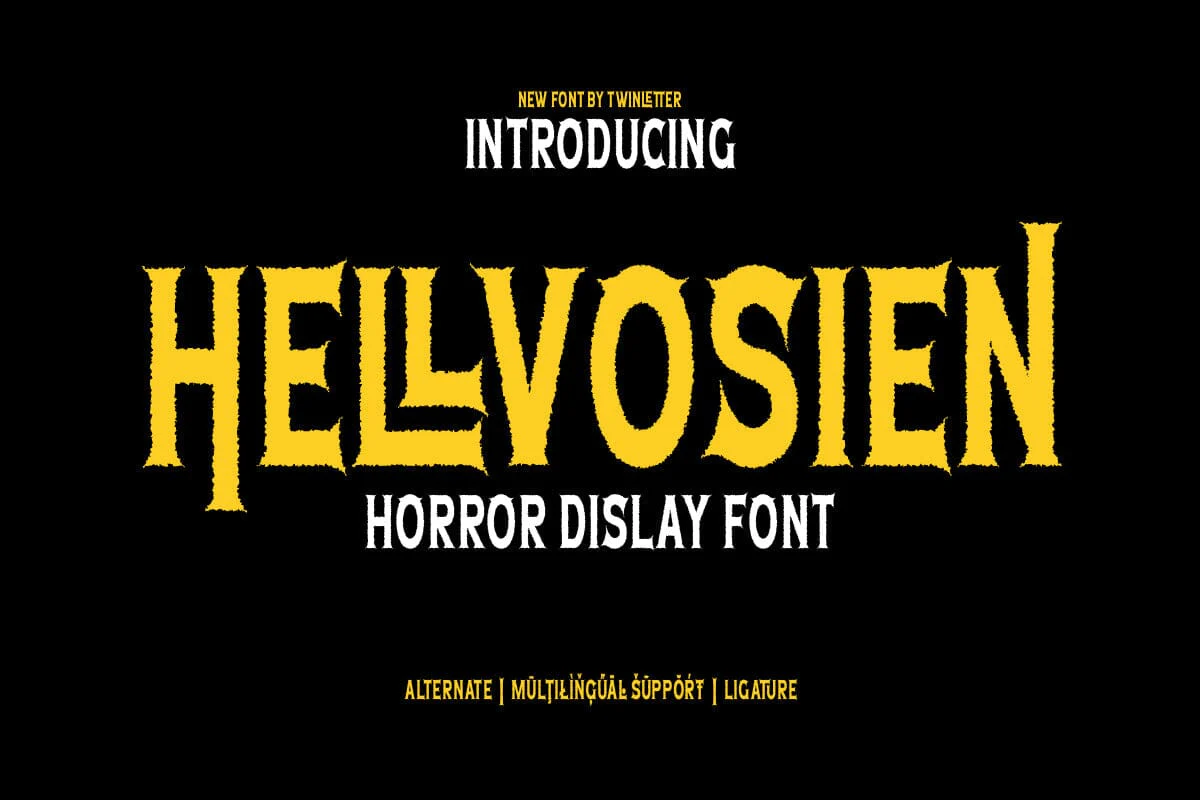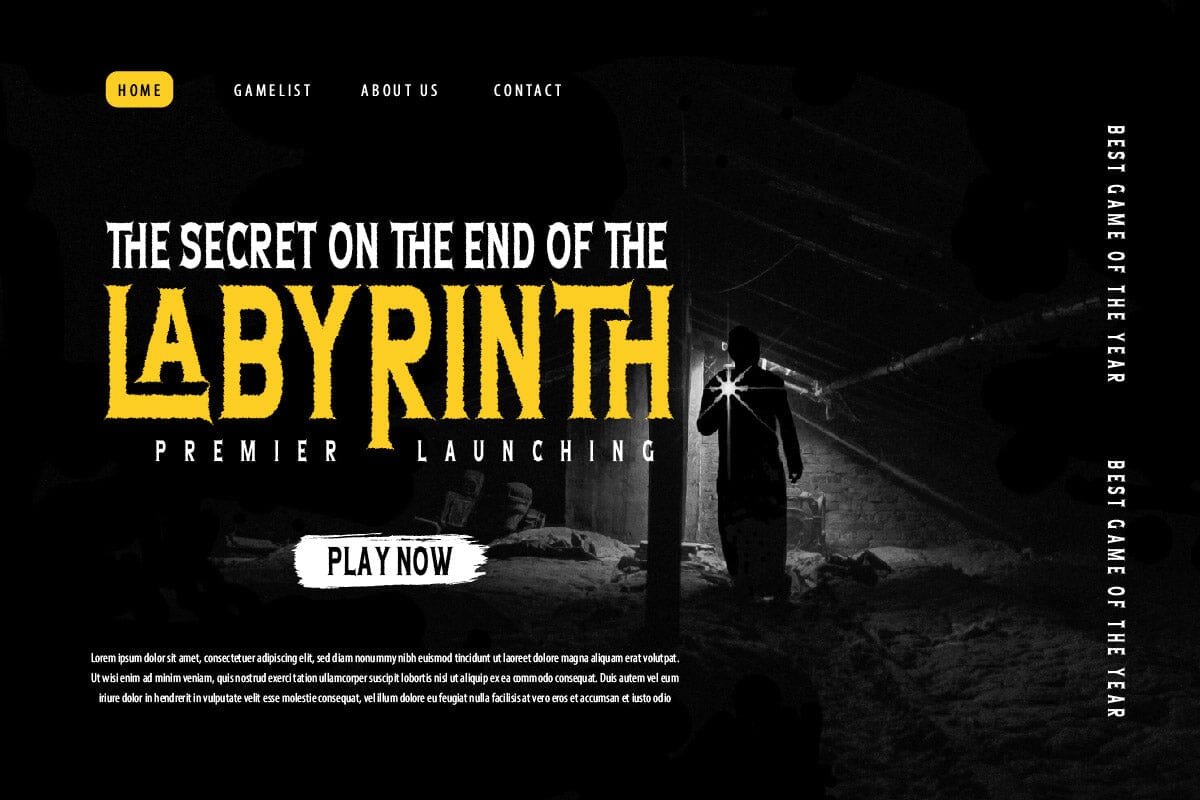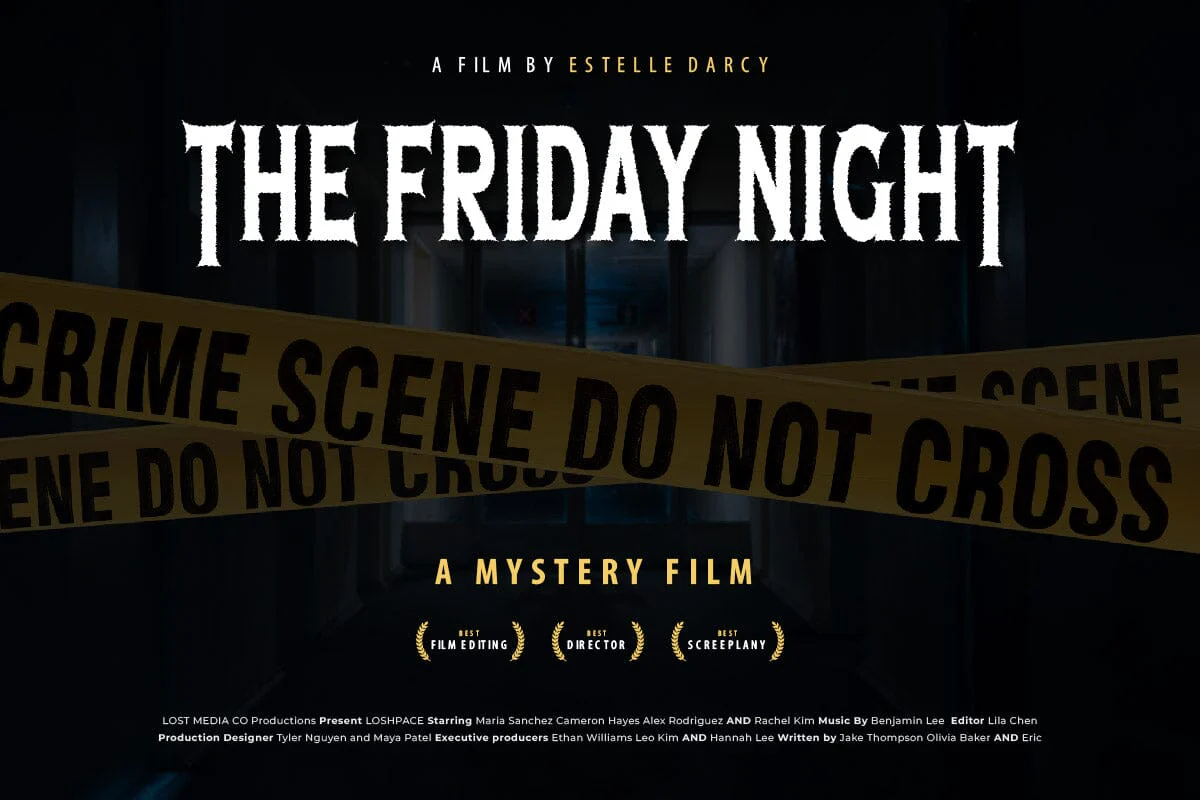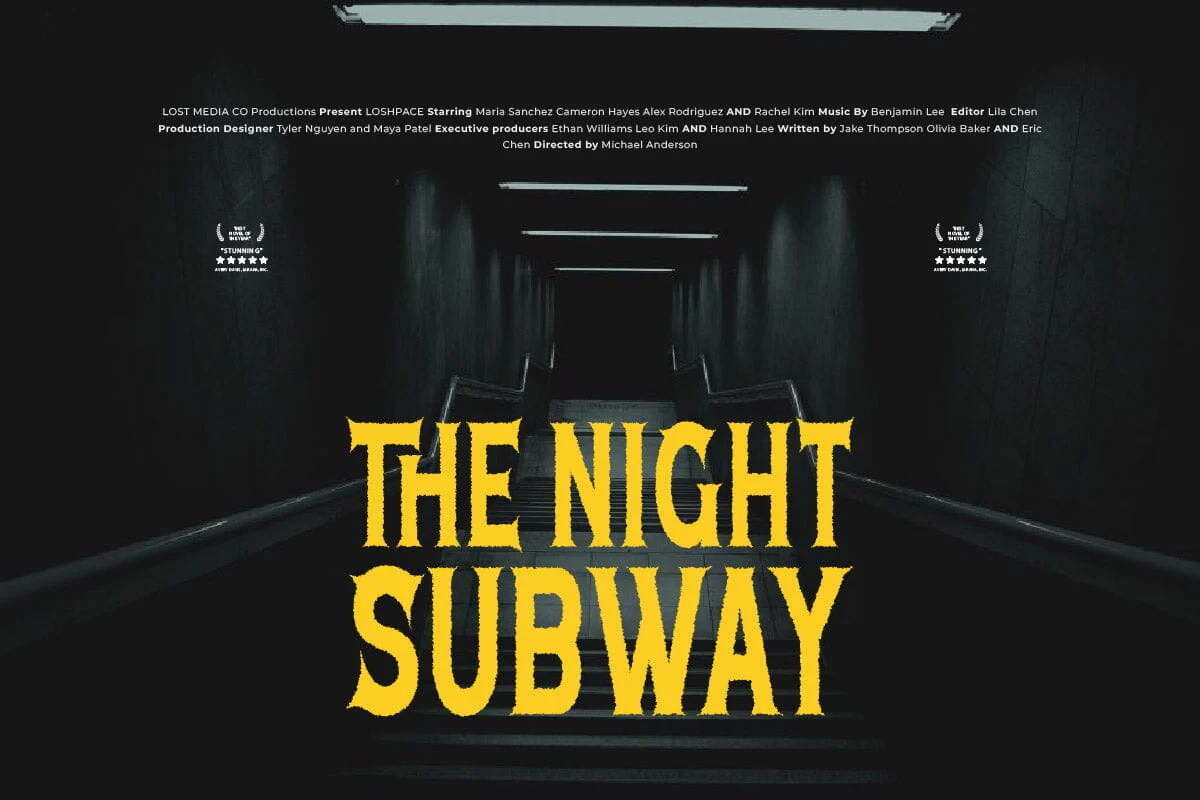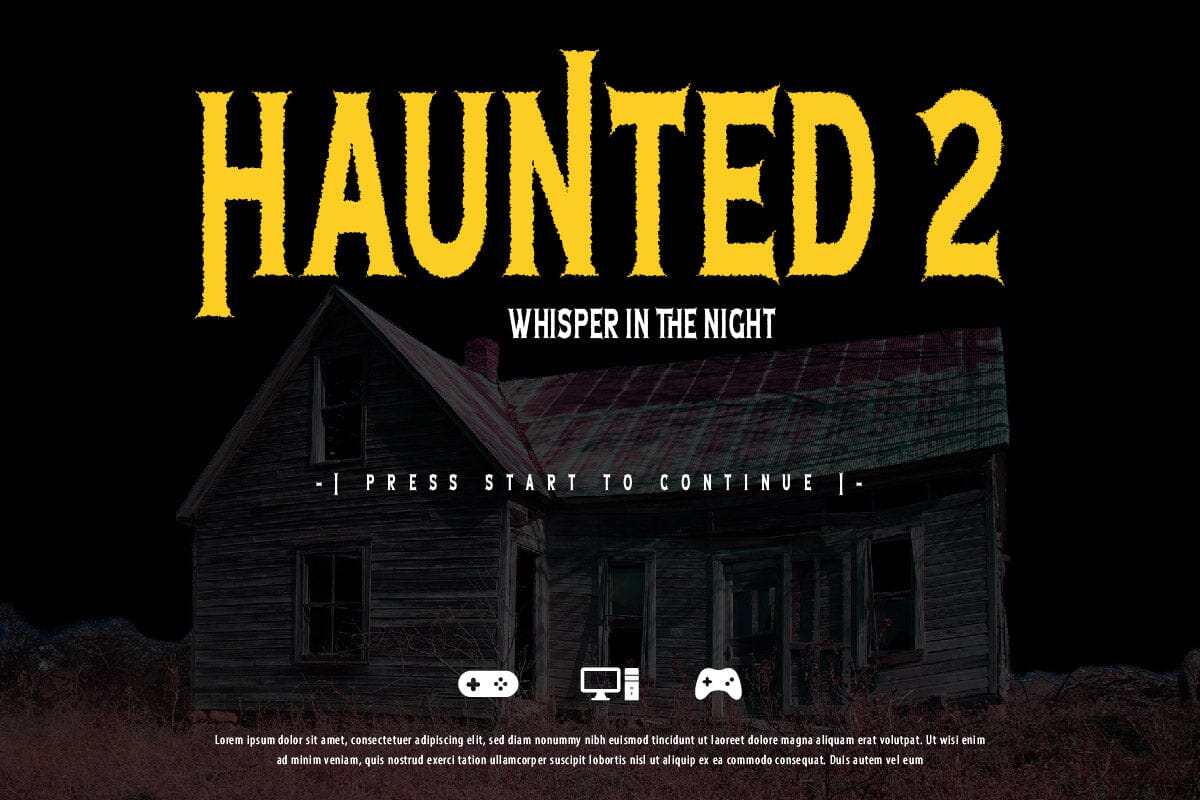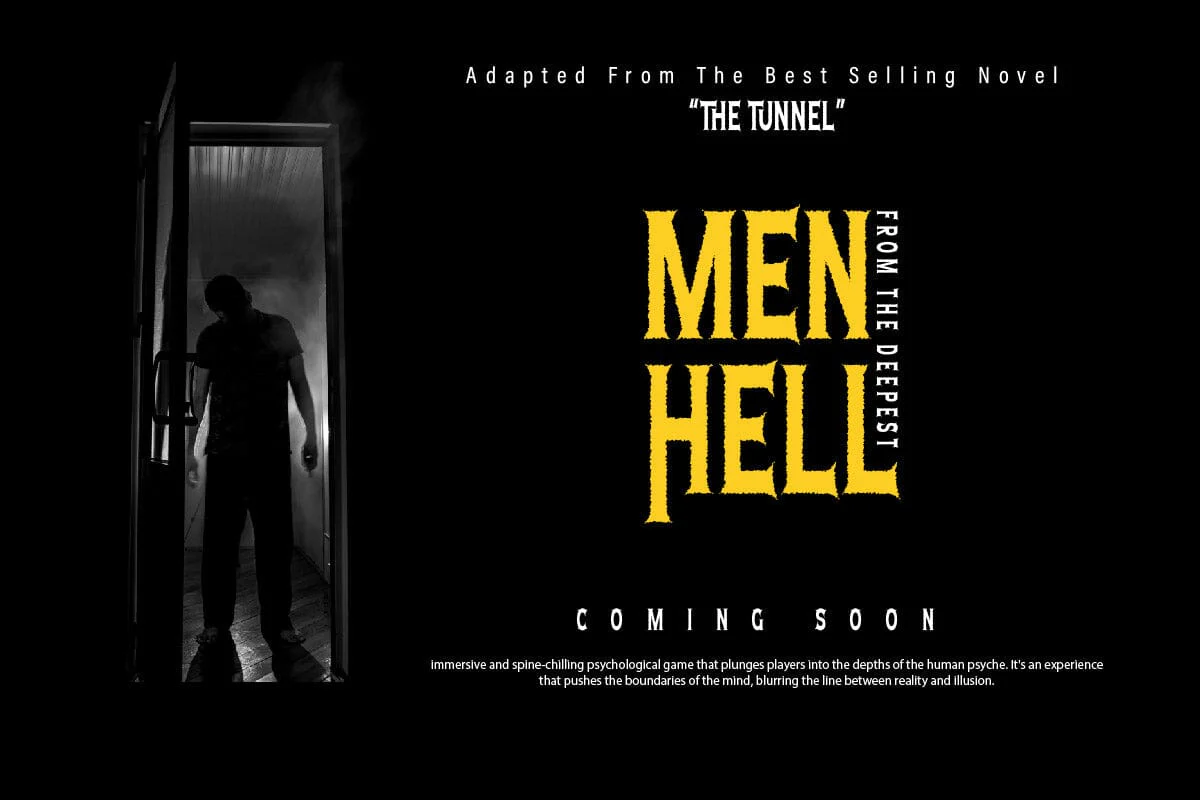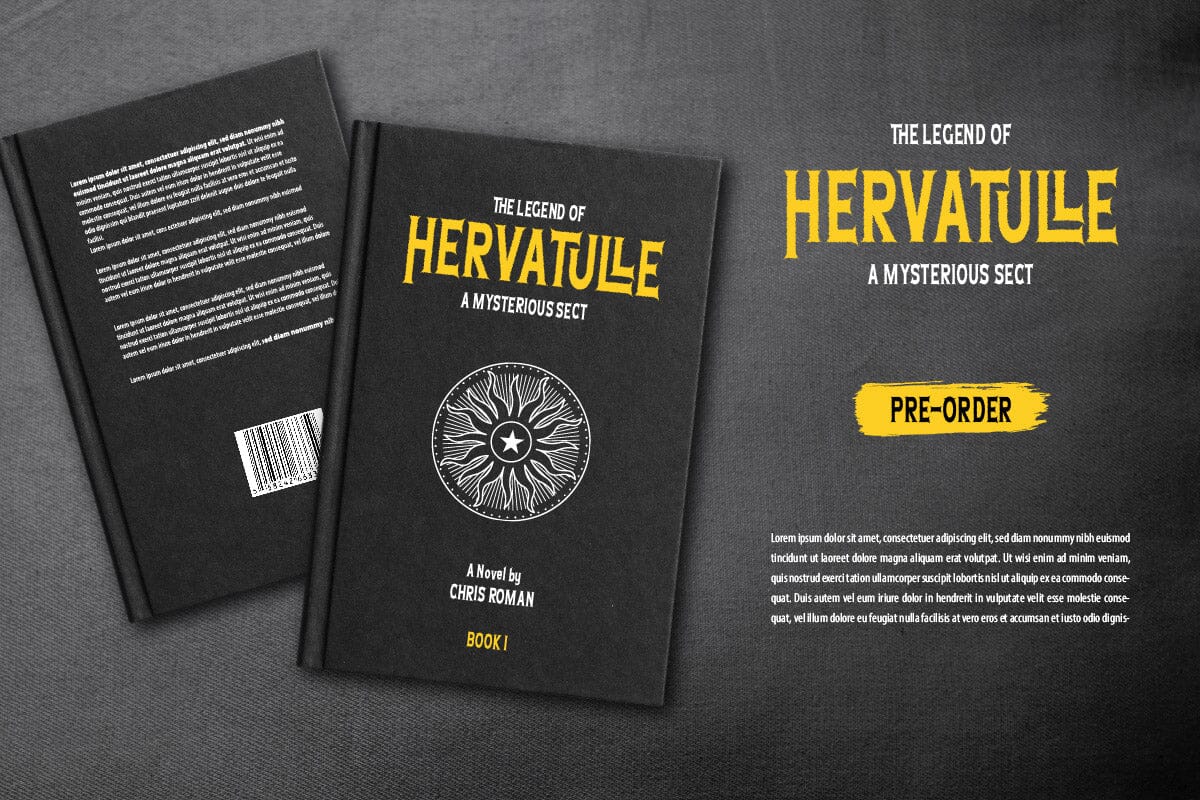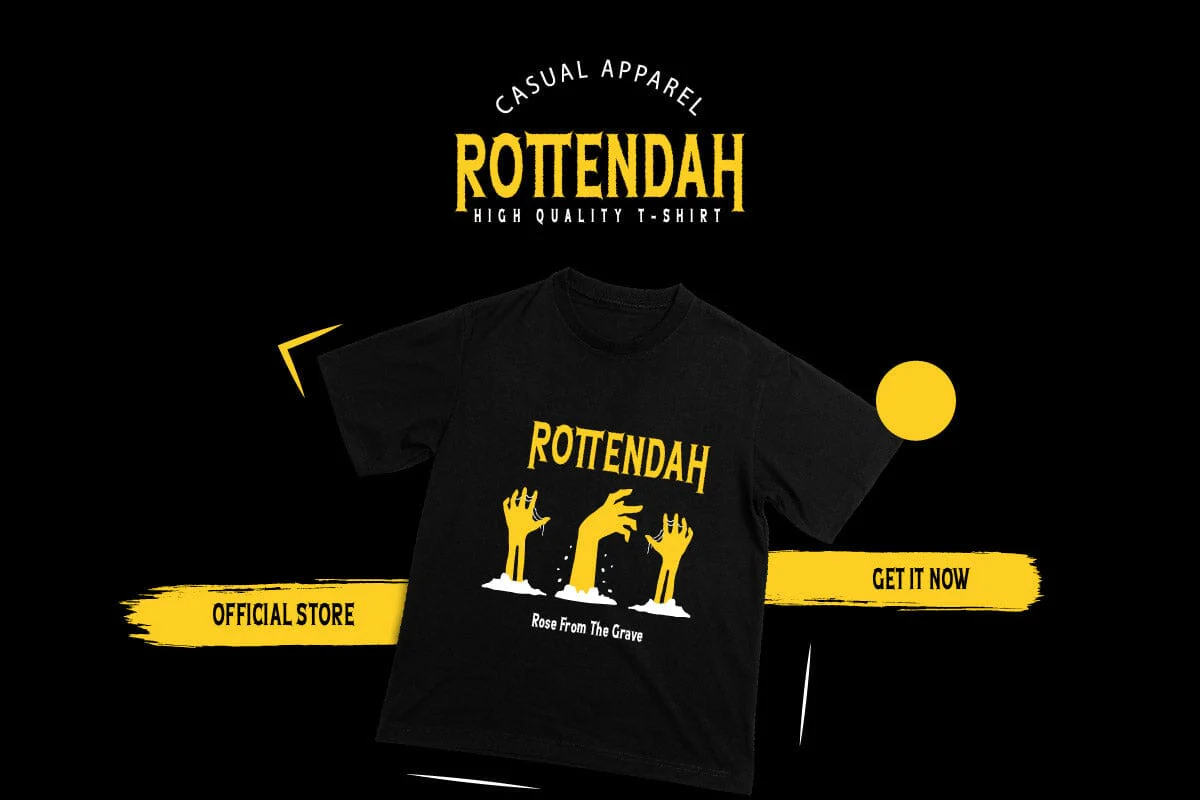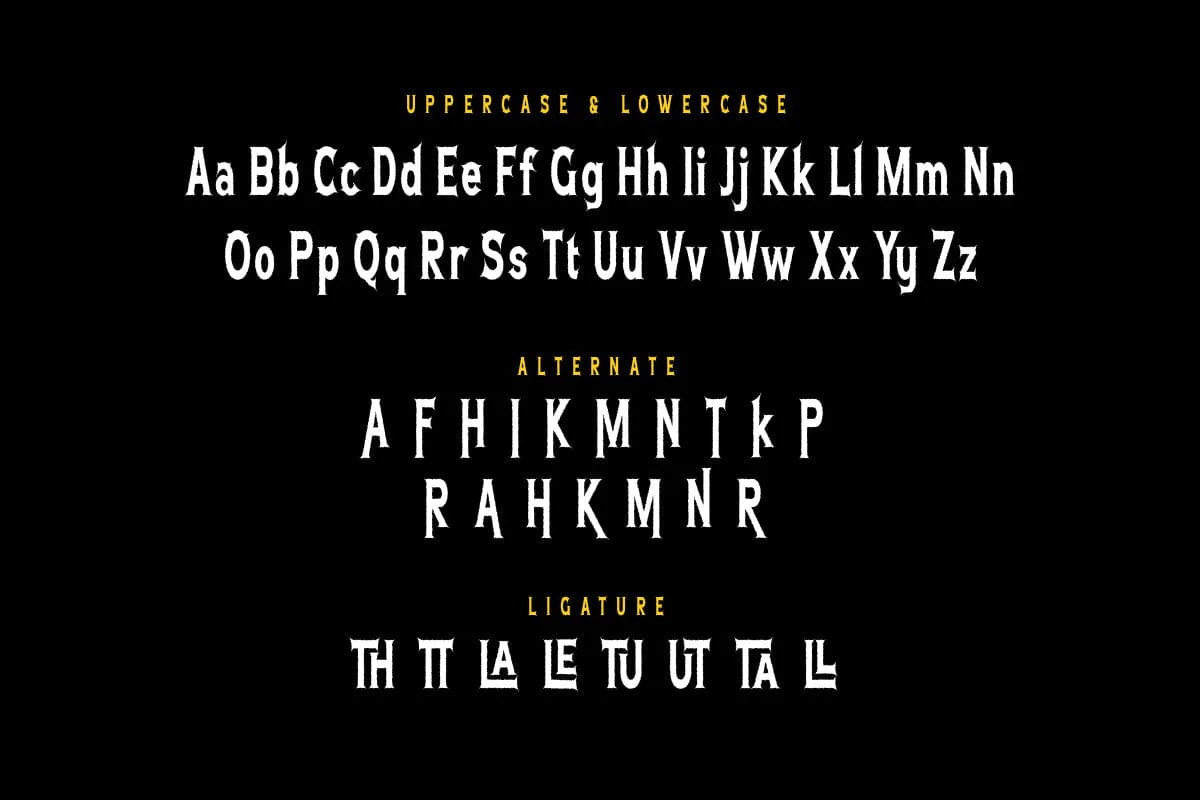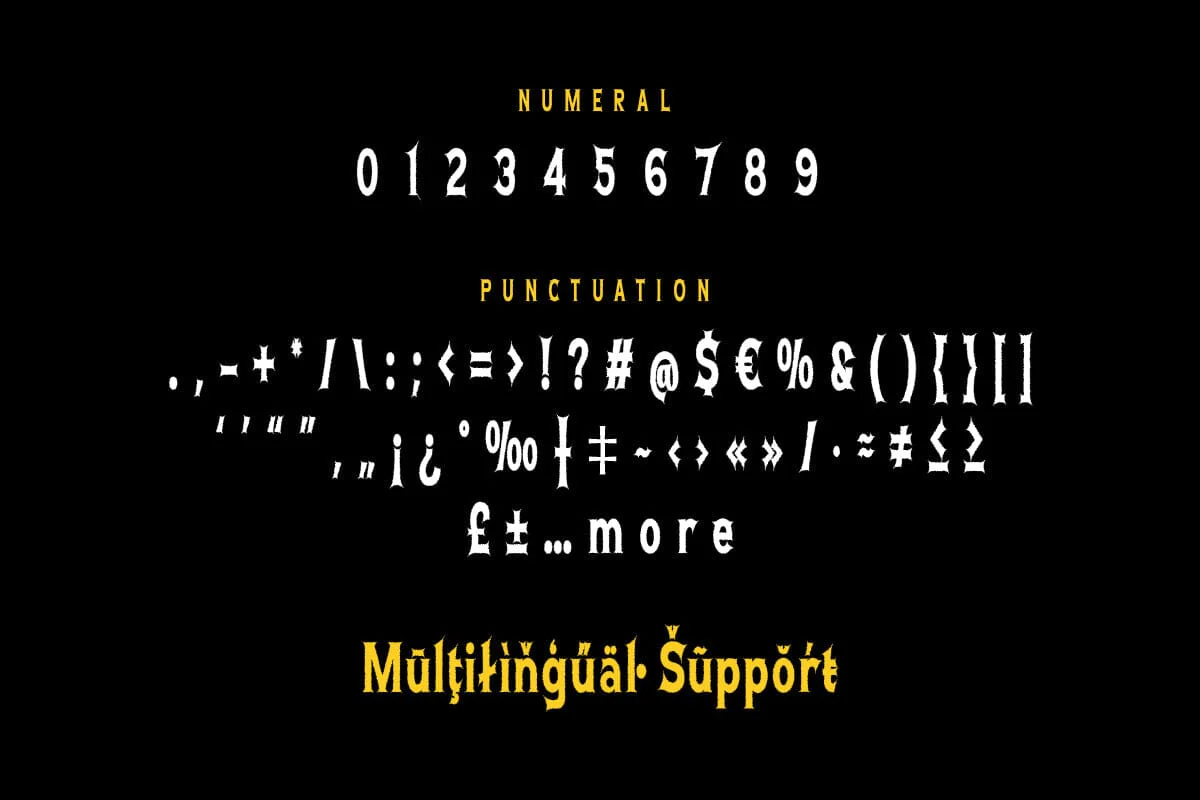
Hellvosien - Horror Display Font
Hellvosien is a horror display font that brings a touch of the macabre to your designs. Its jagged, unsettling characters are perfect for creating an atmosphere of fear and suspense, making it the ideal choice for horror movie posters, book covers, and Halloween-themed designs. But Hellvosien is more than just a font, it’s a way to create an atmosphere of mystery and intrigue. With Hellvosien, your designs will not only be visually striking, but also create an atmosphere that keeps your audience on the edge of their seats. It’s like a shadow in the dark, mysterious and chilling, perfect for any design that needs to evoke fear and suspense.